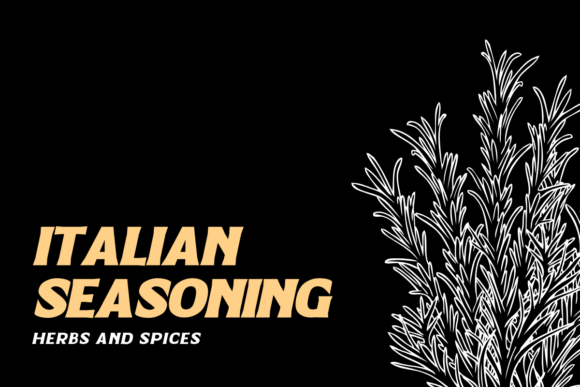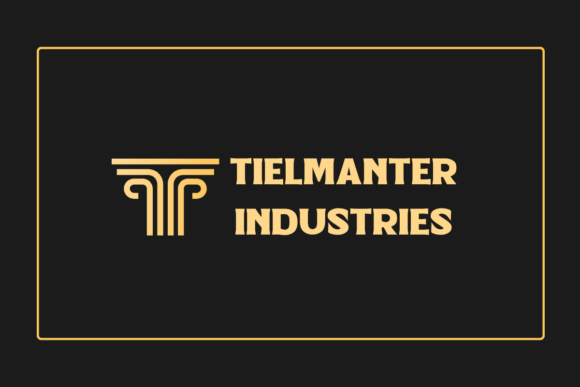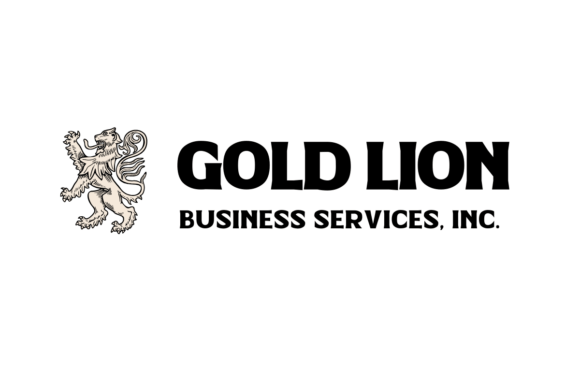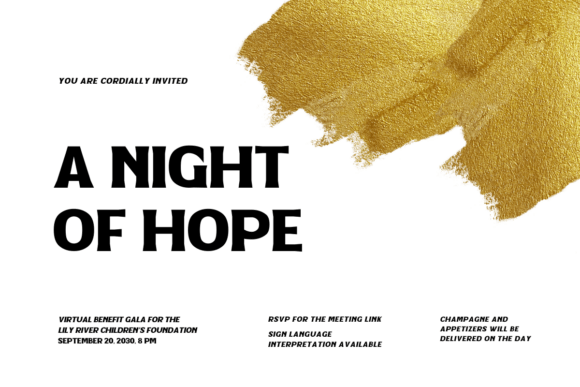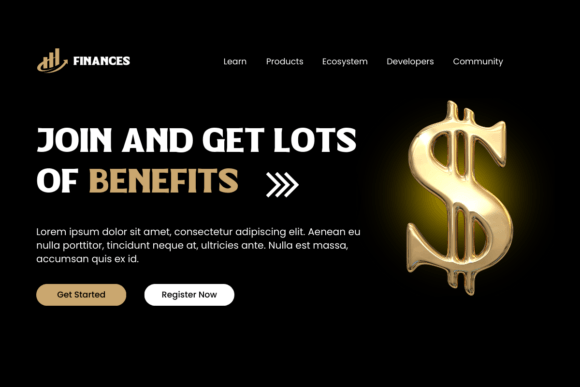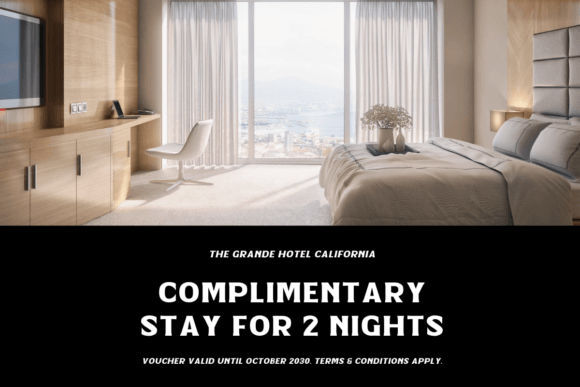
Introducing Goldener: Elevate Your Designs with Timeless Elegance
In the world of typography, a well-crafted font can make all the difference in elevating your design from ordinary to extraordinary. Meet Goldener, a sophisticated all-caps modern display serif font that is poised to become your go-to choice for adding a touch of class to any project. With its elegant lines, distinctive style, and versatile variations, Goldener is the perfect companion for designers and crafters looking to make a lasting impression.
The Essence of Goldener: A Modern Display Serif Font
Goldener is more than just a font; it’s an experience. Its modern display serif design exudes a sense of luxury and sophistication, making it ideal for projects that demand a high level of elegance. Whether you’re working on a luxury brand logo, a high-end product packaging, or an editorial piece that requires a touch of refinement, Goldener’s refined lines and classic serif elements ensure that your message is conveyed with poise and grace.
Variety and Versatility: The Goldener Font Family
Understanding the diverse needs of designers, the Goldener font family comes in four stunning variations: Regular, Italic, Bold, and Bold Italic. This range allows you to experiment with different tones and emphasis, ensuring that your design achieves the perfect balance of style and readability.
- Goldener Regular: The foundation of the family, offering a clean and elegant look perfect for headlines and titles.
- Goldener Italic: Adds a dynamic flair to your designs, ideal for adding emphasis or creating a sense of movement.
- Goldener Bold: For when you need to make a statement, the bold version of Goldener delivers a powerful presence.
- Goldener Bold Italic: Combining strength with elegance, this variation is perfect for projects that require both impact and sophistication.
Crafting Eye-Catching Designs with Goldener
Goldener’s versatility extends beyond its variations; it’s also incredibly easy to use. Its clear and legible design ensures that it performs well across various mediums, from digital platforms to print. Designers can effortlessly create:
- Headlines and Titles: Grab attention with Goldener’s striking presence.
- Logos and Branding: Establish your brand identity with a font that communicates luxury and professionalism.
- Packaging and Advertising: Stand out on shelves and in ads with Goldener’s distinctive charm.
Why Choose Goldener?
In a sea of fonts, Goldener stands out for several reasons:
- Timeless Elegance: Goldener’s classic design ensures that your work remains relevant and stylish for years to come.
- Modern Flair: Its contemporary edge keeps your designs fresh and engaging.
- High Versatility: With four font styles, you have the flexibility to experiment and find the perfect fit for your project.
Goldener is more than just a font; it’s a design companion that brings sophistication, elegance, and a touch of modern flair to your projects. Whether you’re a designer looking to elevate your branding, a crafter seeking the perfect typography for your handmade goods, or a business owner aiming to make a statement with your marketing materials, Goldener is the perfect choice. Discover the difference that Goldener can make in your designs and take your projects to new heights of style and professionalism.